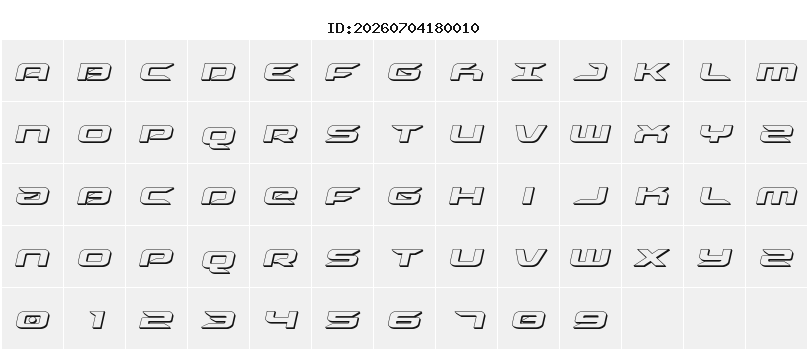
Drive 3D Italic Preview
• Font Name: Drive 3D Italic
• Full Font Name: Drive 3D Italic
About Drive 3D Italic.ttf
Drive 3D Italic.ttf is a modern, elegant sans-serif font designed for ultimate readability and visual harmony. Perfect for branding, headlines, web design, and print materials.